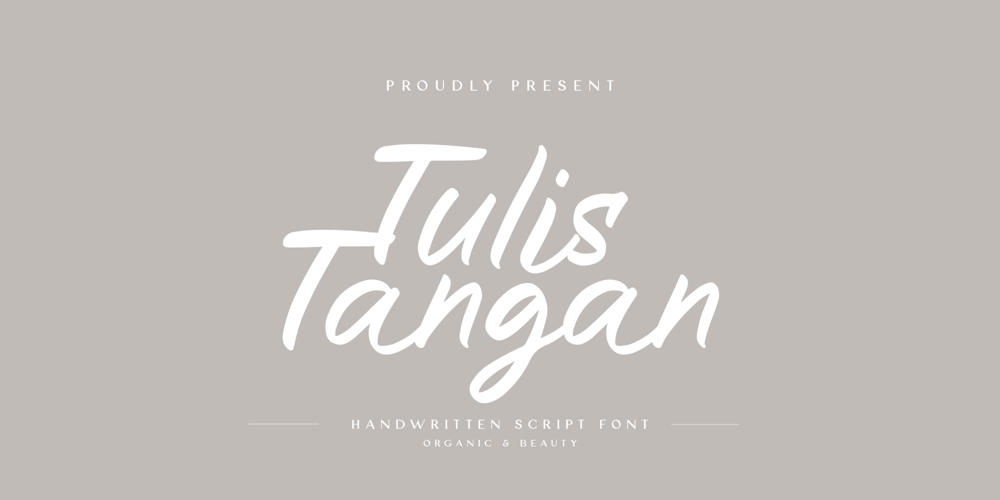
Tulis Tangan Font Family was designed by Wildan Suprian Syah and published by Amani Studio. Tulis Tangan contains 1 styles and family package options. Tulis Tangan is a font that adopts handwriting like the original. Made carefully and in detail, resulting in a font that can adapt to any template.This font can be used anywhere, such as digital products, company products, Instagram posts, and many more.